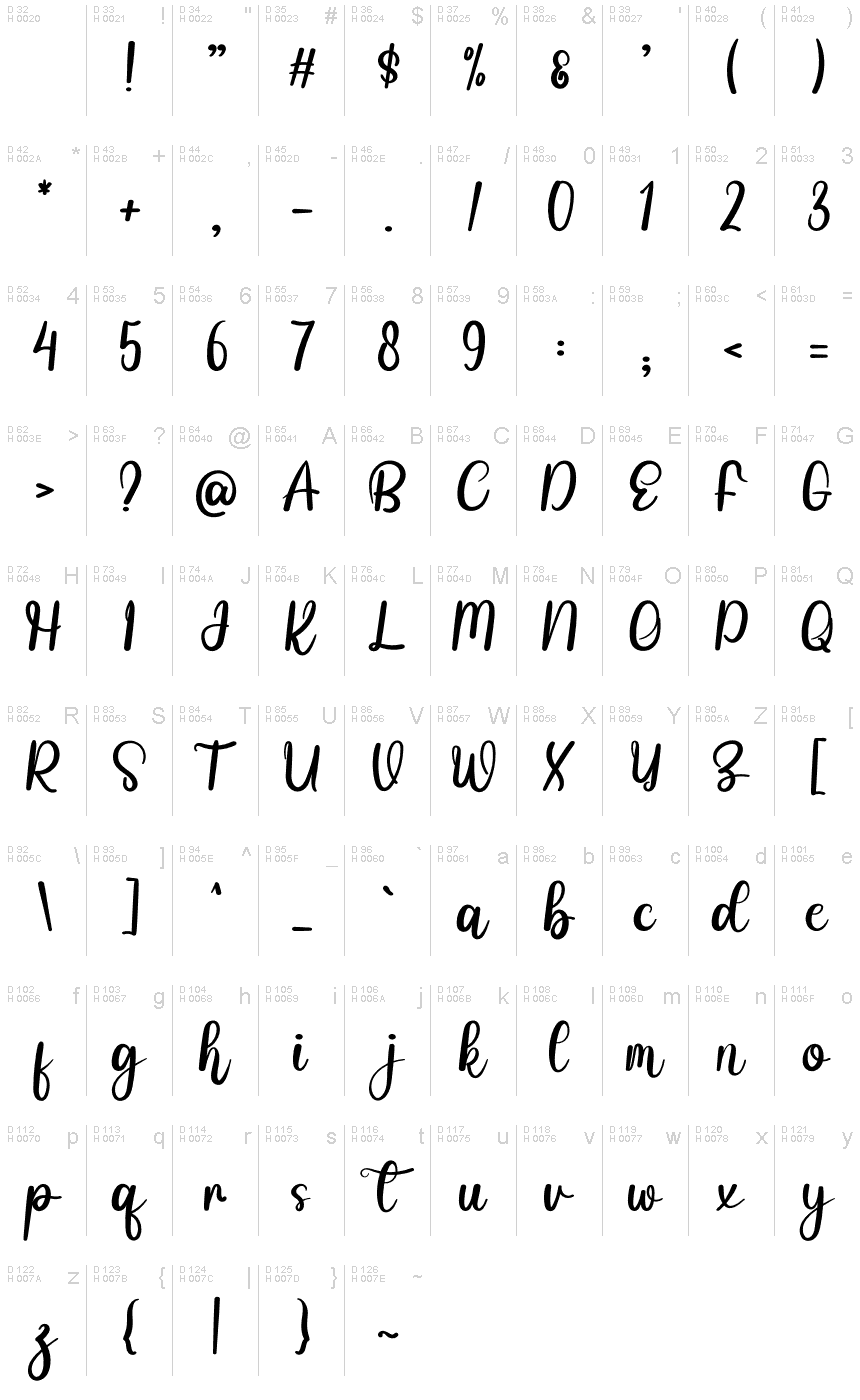
Rainbow
The Rainbow font by Inermedia Studio is a whimsical, handwritten script that will bring a lighthearted touch to your projects. Perfect for crafting logos, titles, and invitations, the font's delicate curves and playful flourishes will add a unique, personal touch to your work. You can also use it to create eye-catching posters and banners with its bouncy lettering. Bring cheer to your designs with Rainbow!